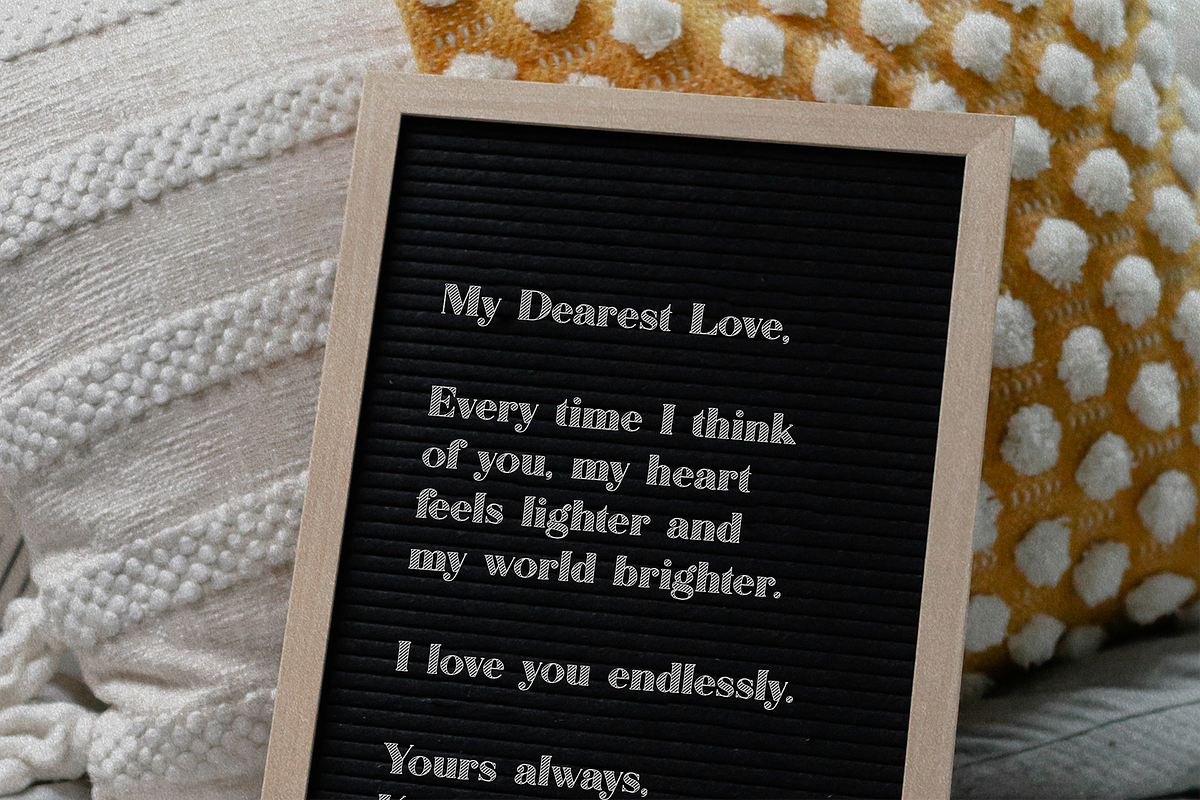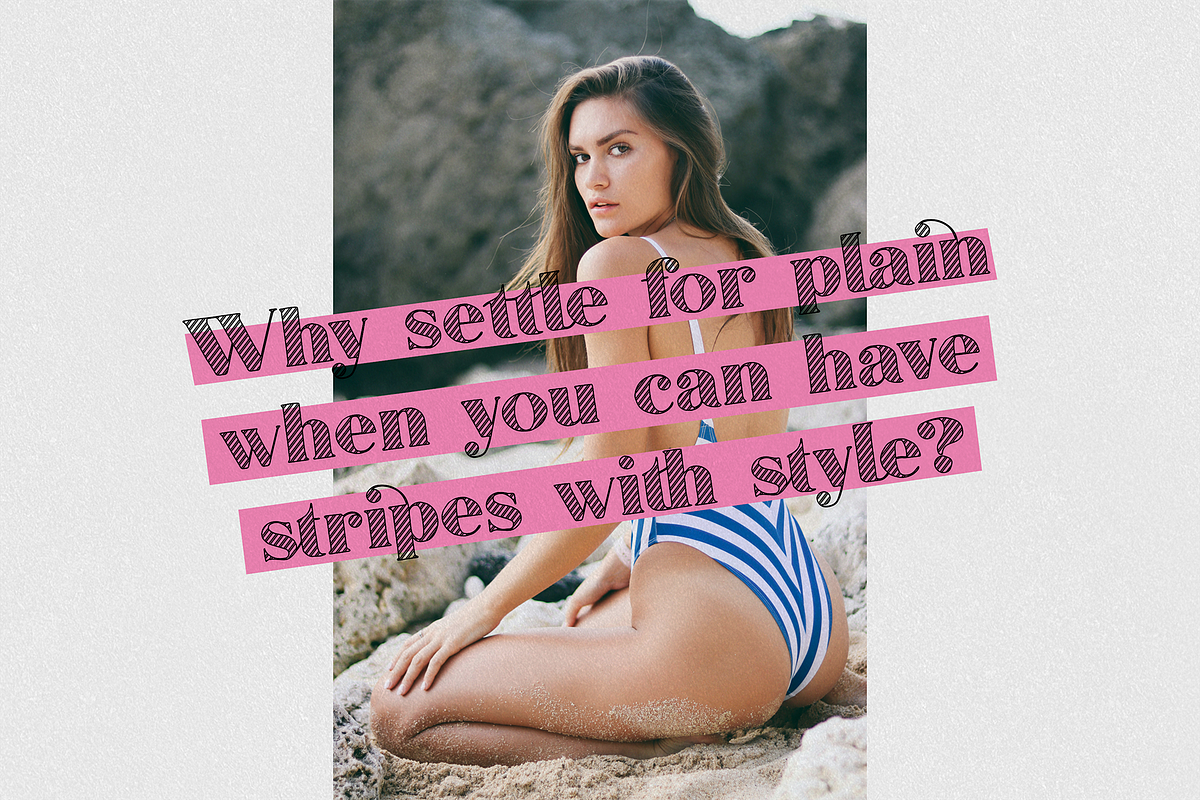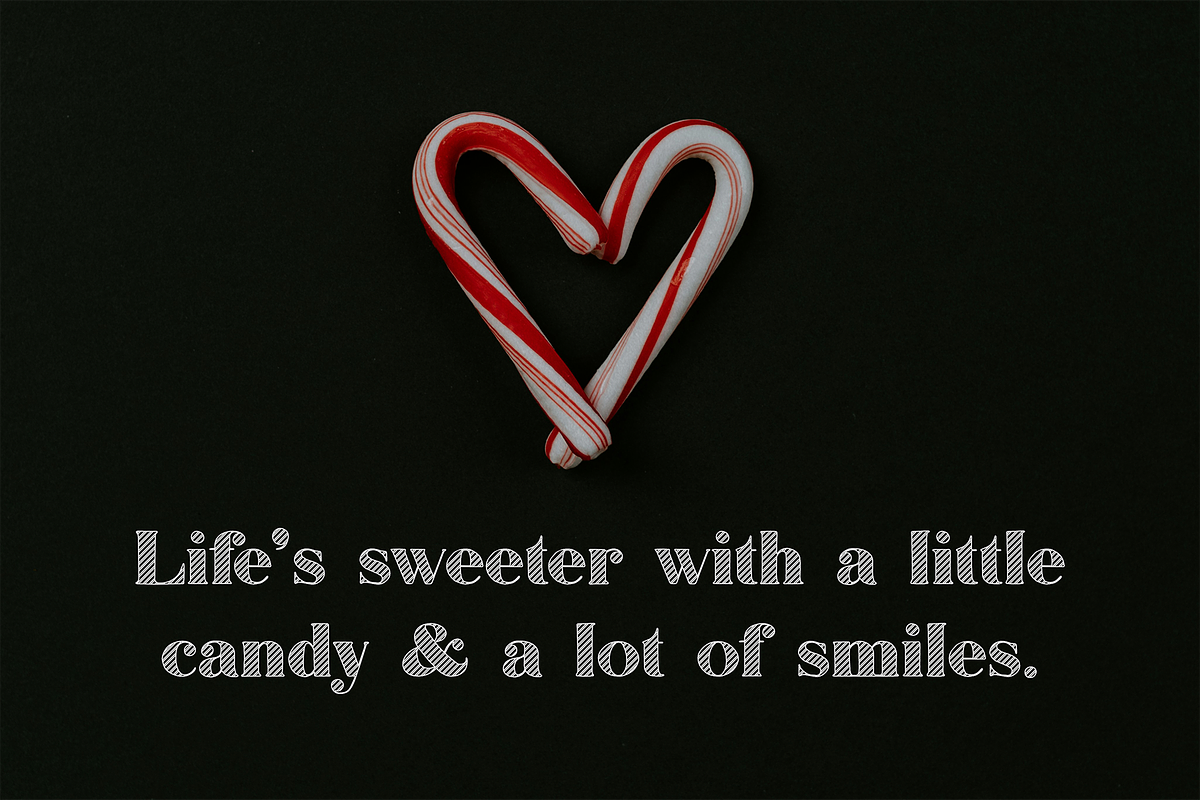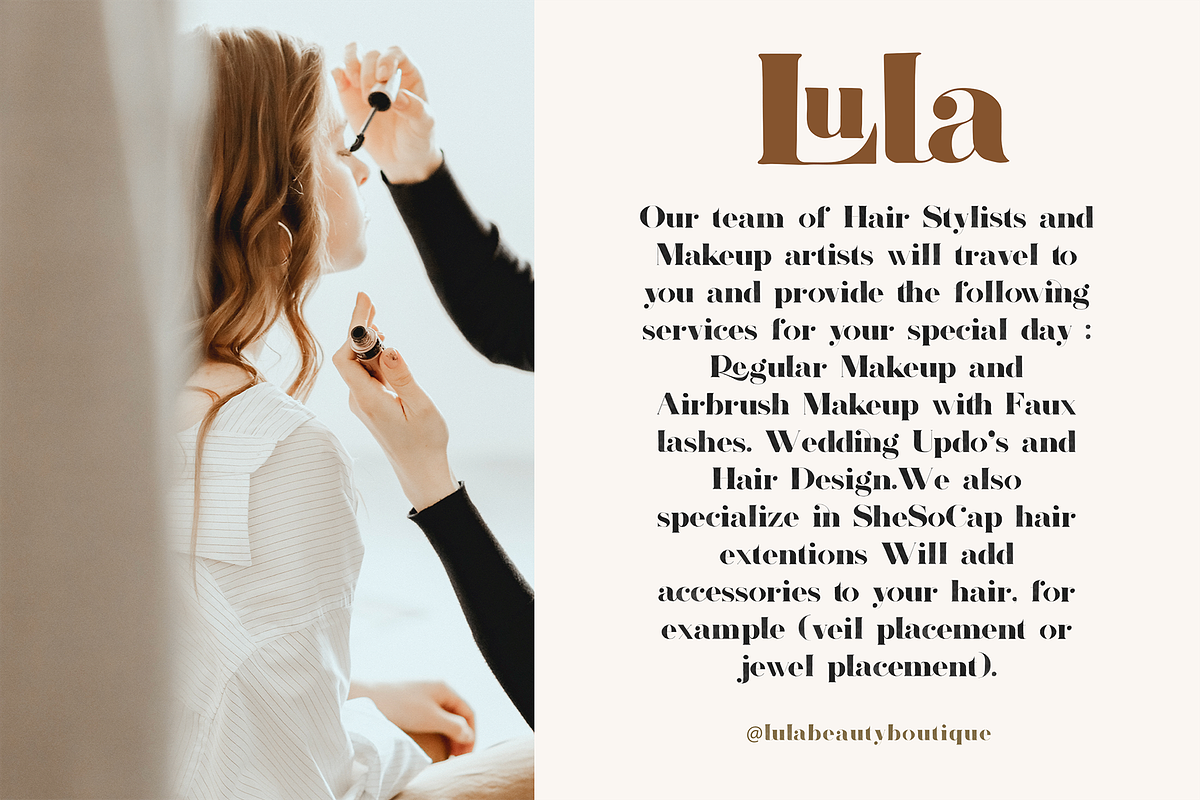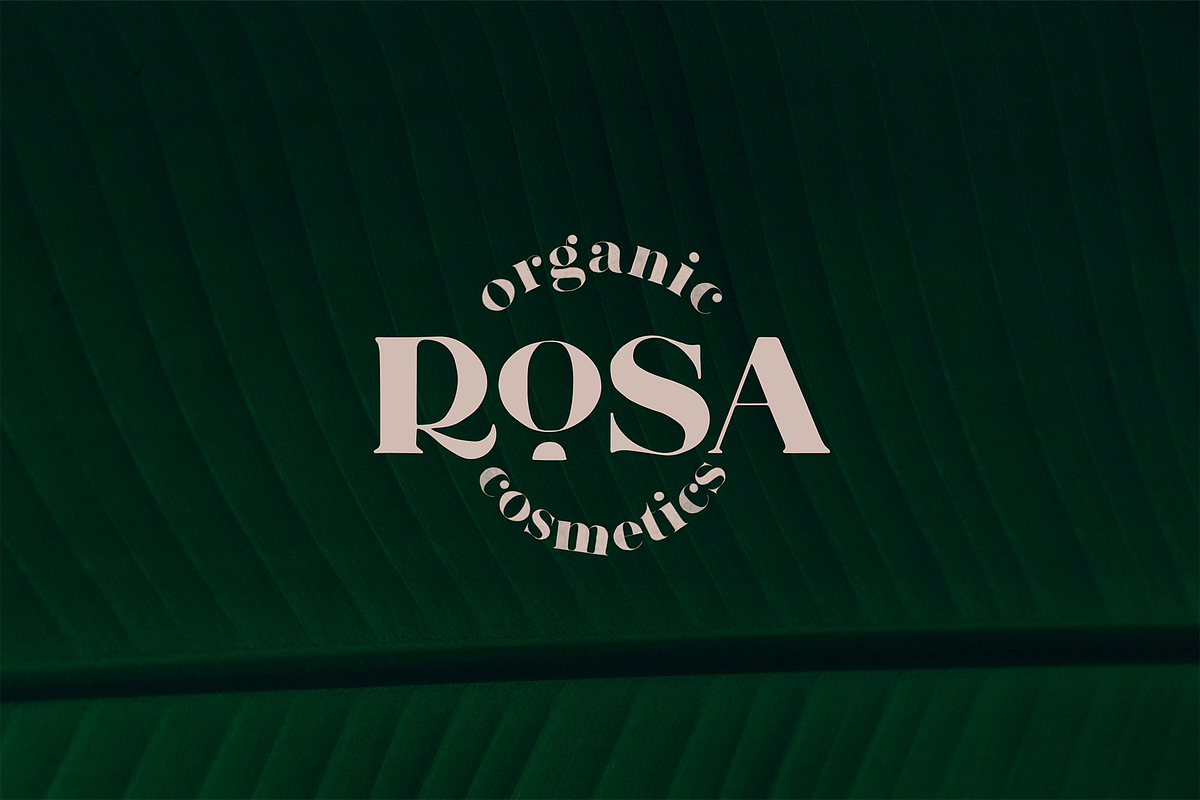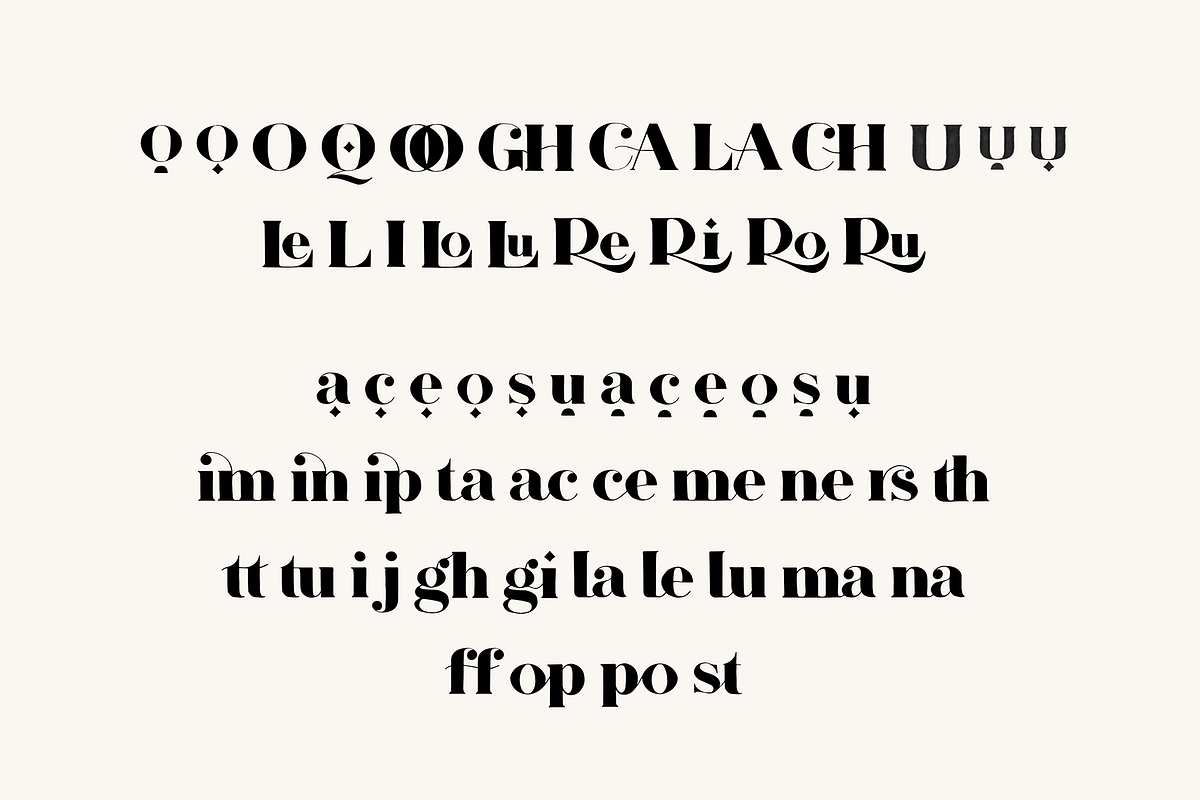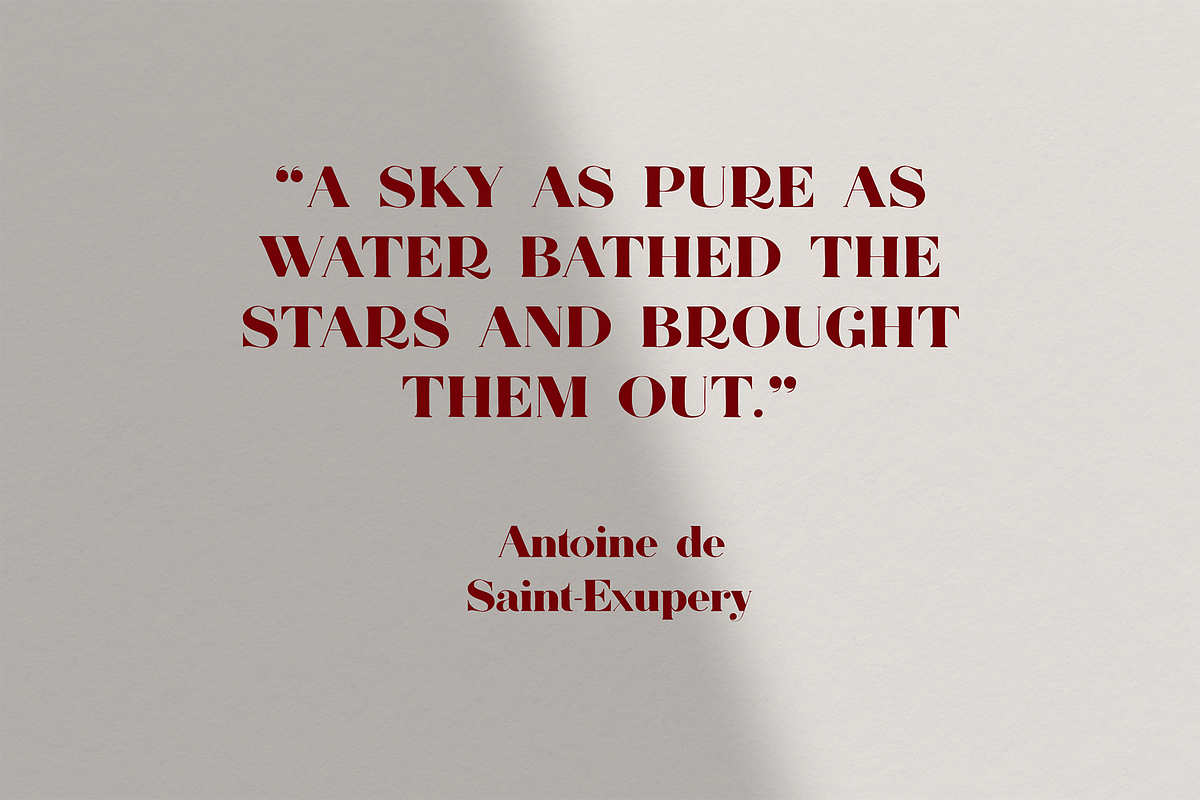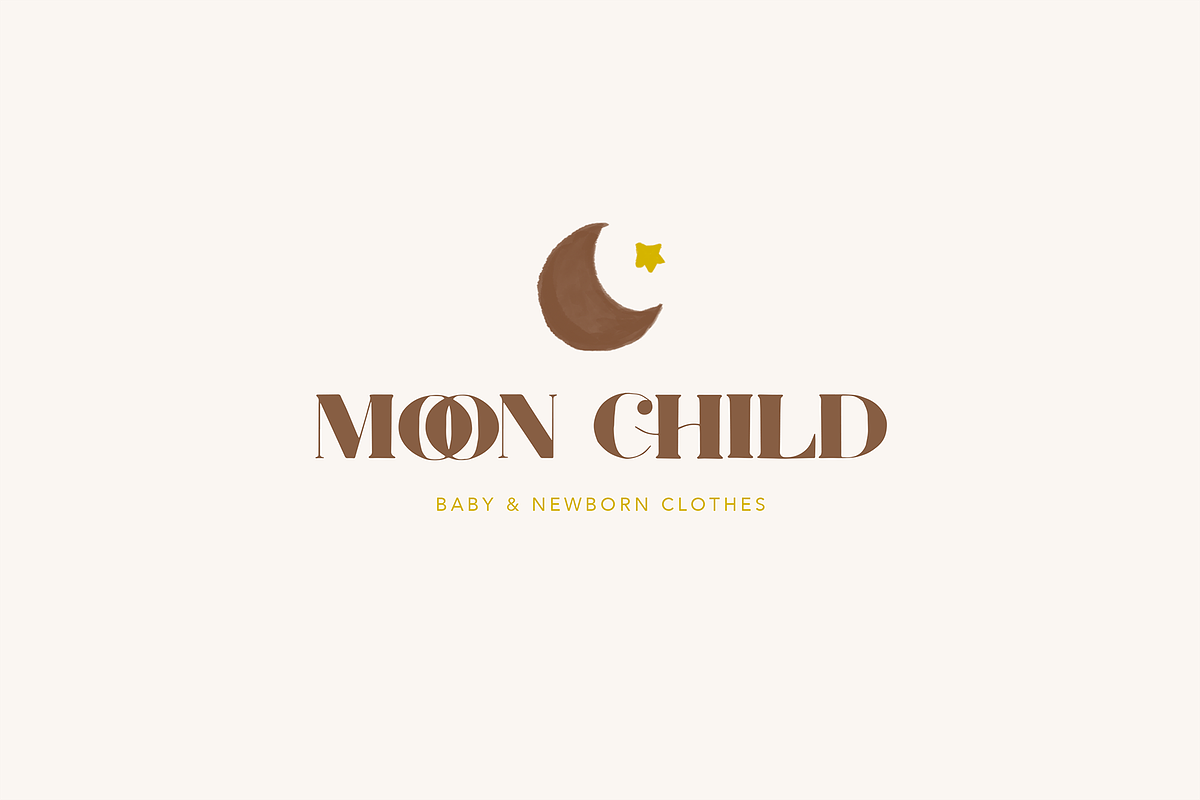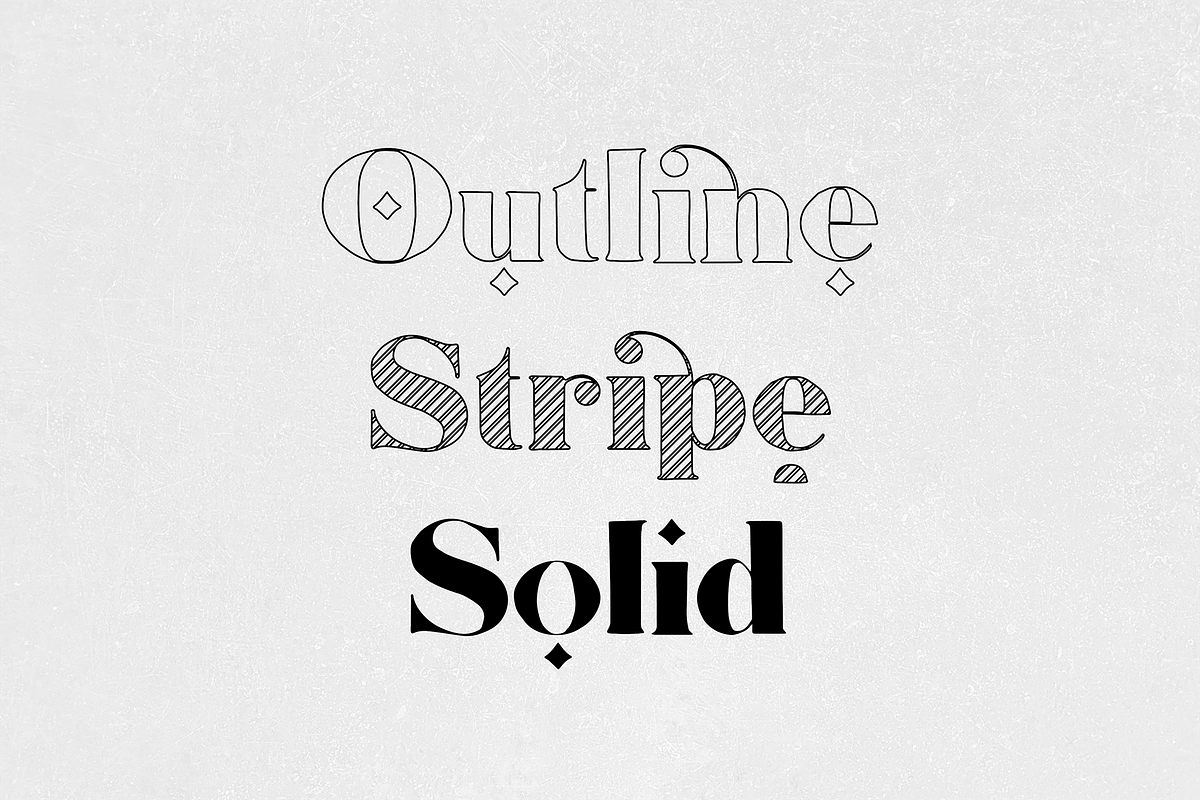
Velvet Gem Font Family
Velvet Gem is a decorative serif font family featuring three stylish versions: Outline, Stripe, and Solid. Elegant, bold, and playful, this font is perfect for logos, branding, invitations, packaging, posters, Cricut projects, and feminine designs.